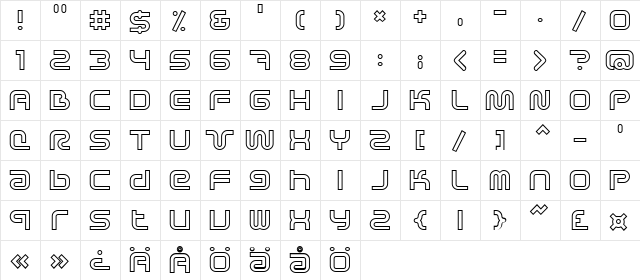
Sci Fied X Outline Regular Font Preview
Sci Fied X Outline Regular
Design Context for Sci Fied X Outline Typeface
Sci Fied X Outline has a distinctly futuristic character, with geometric precision and clean angles that feel at home in technology, gaming, and sci-fi contexts.
Pro Tip: Use Sci Fied X Outline in combination with a neutral sans for body text. Let it define the brand voice in headlines while keeping reading comfortable elsewhere.